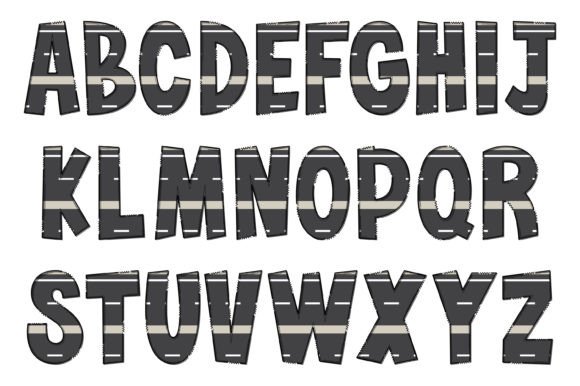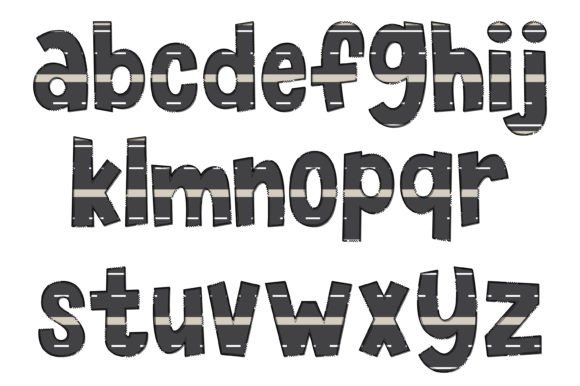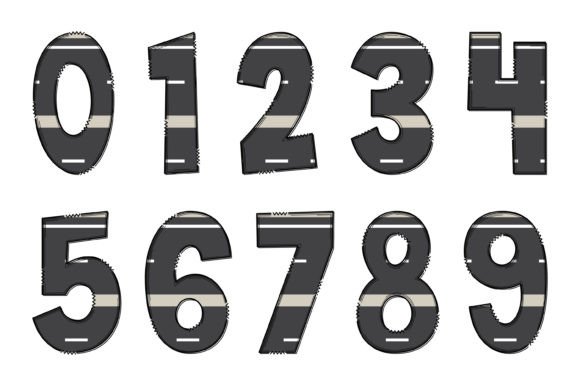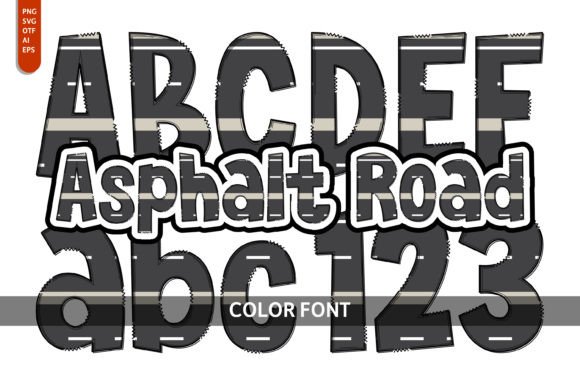
The Playful World of Asphalt Road Font
Have you ever been working on a design project, and suddenly, you’re stuck on finding the perfect font? I recall a recent experience where I was tasked with creating a whimsical children’s book. The client wanted a font that was not only playful but also easy to read. After scouring through numerous font libraries, I stumbled upon the Asphalt Road font. It was love at first sight! ✨
The Asphalt Road font is a color font (Opentype-SVG) that has become a staple in my design toolkit. Its unique blend of playfulness and artistic flair makes it perfect for designs that require a touch of whimsy, such as children’s books, posters, invitations, and greeting cards.
- ✨ Playful and Artistic Feel: The Asphalt Road font has a unique ability to convey a sense of playfulness and artistic flair, making it perfect for creative projects.
- ✅ Easy to Read: Despite its whimsical nature, the font is surprisingly easy to read, even for young audiences.
- 🎨 Color Font Capabilities: As an Opentype-SVG font, Asphalt Road supports color glyphs, allowing for stunning color-filled designs.
- 🤔 Steep Learning Curve: If you’re new to color fonts or Opentype features, you might need to invest some time in learning how to use Asphalt Road to its full potential.
The Designer Inspiration Behind Asphalt Road
The Asphalt Road font was inspired by the vibrant colors and playful atmosphere of urban landscapes. Imagine a world where roads come alive with color and creativity – that’s what the designer had in mind when creating this unique font.
| What kind of projects is Asphalt Road font best suited for? | Asphalt Road font is perfect for designs that require a playful or artistic feel, such as children’s books, posters, invitations, greeting cards, and more. |